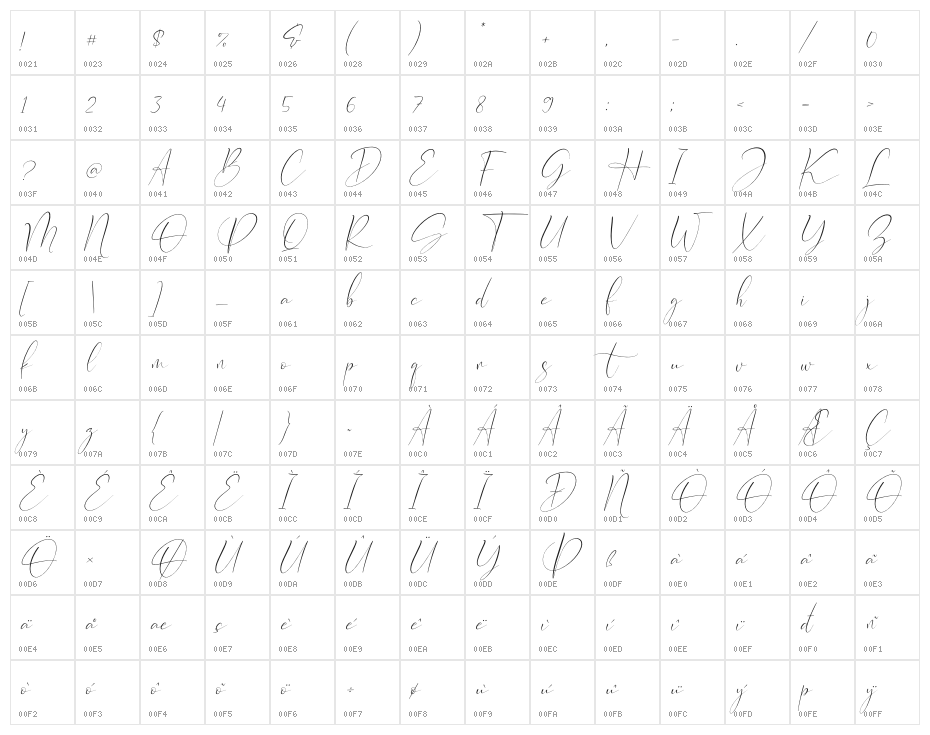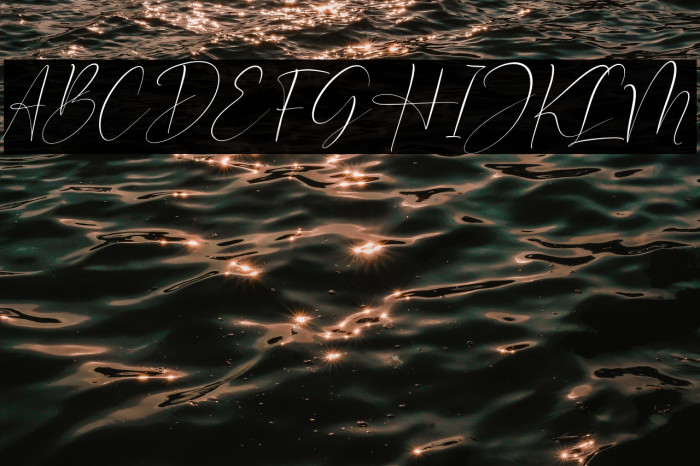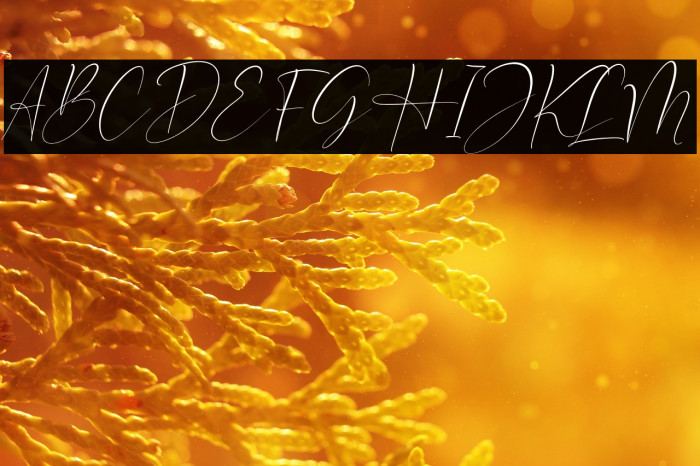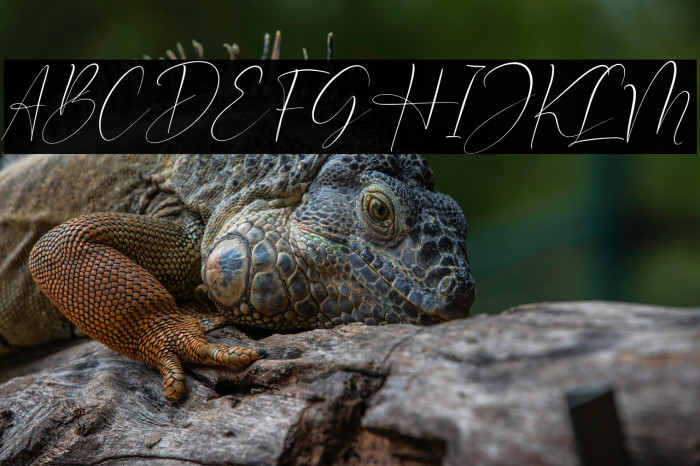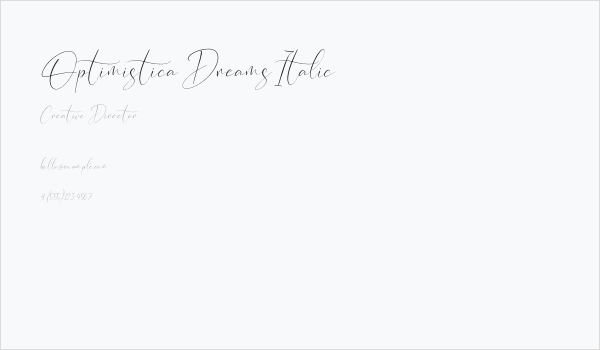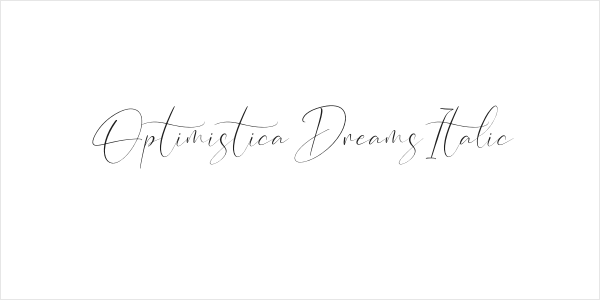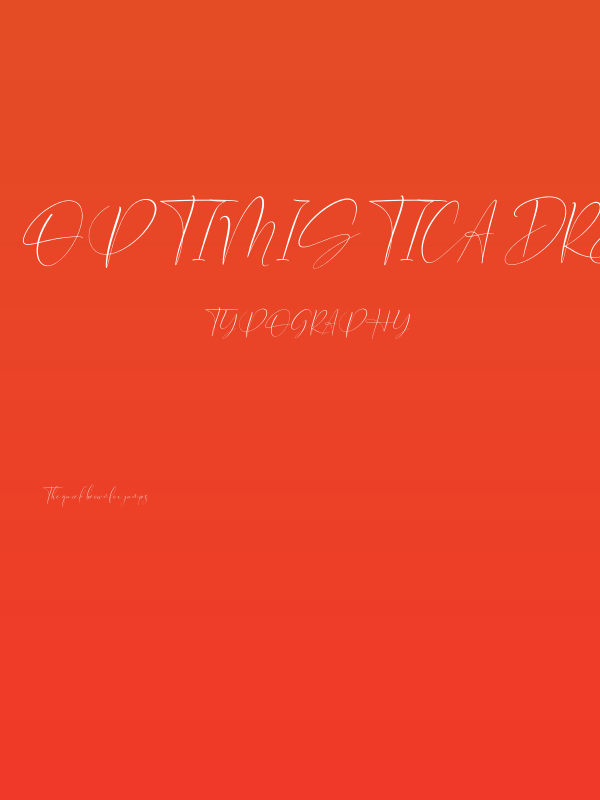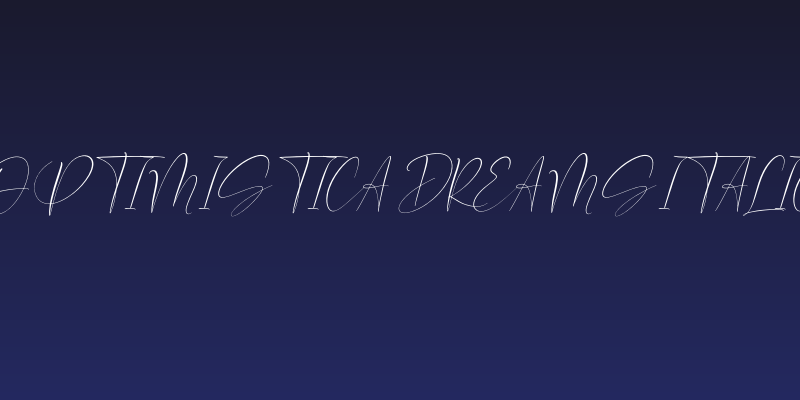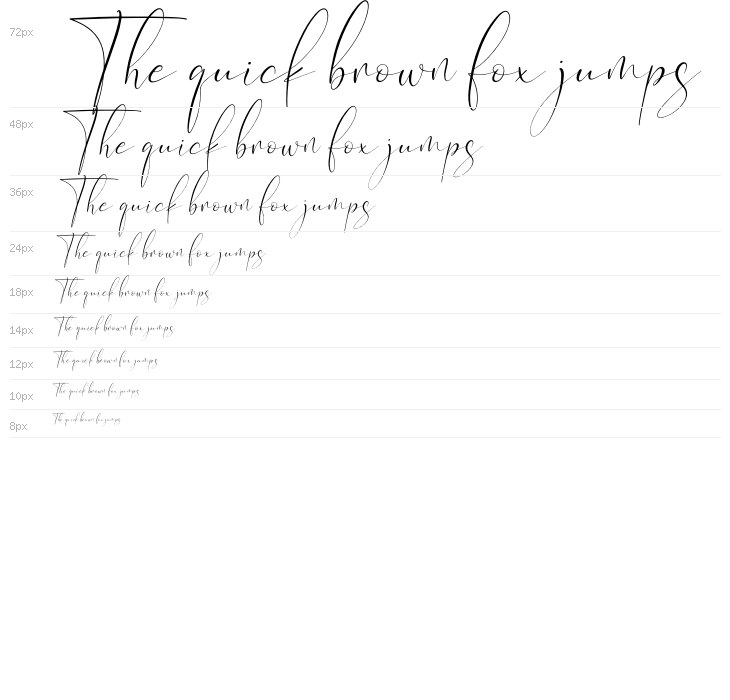
Optimistica Dreams Italic Font
Optimistica Dreams Italic Description
This elegant script font features a flowing, cursive style with a modern twist. The characters are delicately crafted with high contrast between thick and thin strokes, giving it a sophisticated and graceful appearance. The uppercase letters are particularly ornate, with sweeping curves and loops that add a touch of flair. The lowercase letters maintain a consistent style, with smooth connections that enhance readability. The numerals and special characters are designed to complement the overall aesthetic, making this font versatile for various design needs. Its italic nature adds a dynamic and fluid feel, perfect for projects that require a touch of elegance and creativity.